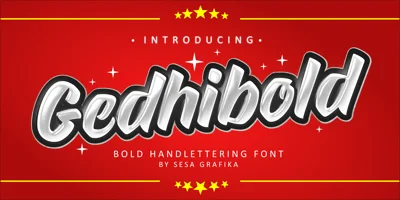
Gedhibold Font
Gedhibold Font is ideal for bold corporate headlines, powerful advertising campaigns, strong brand statements, impactful poster designs, commanding business presentations, authoritative magazine titles, striking web headers, dynamic marketing materials, confident logo designs, forceful call-to-action buttons, dominant signage projects, and assertive promotional graphics.
This font is exciting because it commands absolute attention with its powerfully constructed letterforms that radiate confidence and authority, featuring bold strokes and commanding presence that make every word feel like an important declaration demanding immediate recognition. The robust character design delivers maximum visual impact while maintaining exceptional readability, ensuring your message cuts through noise and clutter with the same decisive force that separates leaders from followers in competitive markets. Each letter demonstrates unwavering strength and professional determination, transforming ordinary text into statements that cannot be ignored or forgotten.
The Gedhibold Font family includes ultra-bold weight with complete uppercase and lowercase alphabets, impactful numerals, authoritative punctuation marks, and strong decorative elements. Advanced versions may offer additional weight variations, condensed options for space-efficient layouts, and enhanced character spacing optimized for maximum headline impact and brand recognition applications.
Whether you're developing commanding brand identities, creating high-impact advertising materials, or designing powerful corporate communications, Gedhibold Font provides the authoritative presence and visual strength your project needs to dominate attention and establish market leadership. This typeface transforms ordinary messaging into powerful declarations that build brand authority and consumer confidence. The font's bold character makes it essential for brands that need to project strength, reliability, and market dominance. Professional marketers and brand strategists will appreciate how this font brings immediate authority to their communications with its genuinely commanding and results-driven character that gets noticed and remembered.